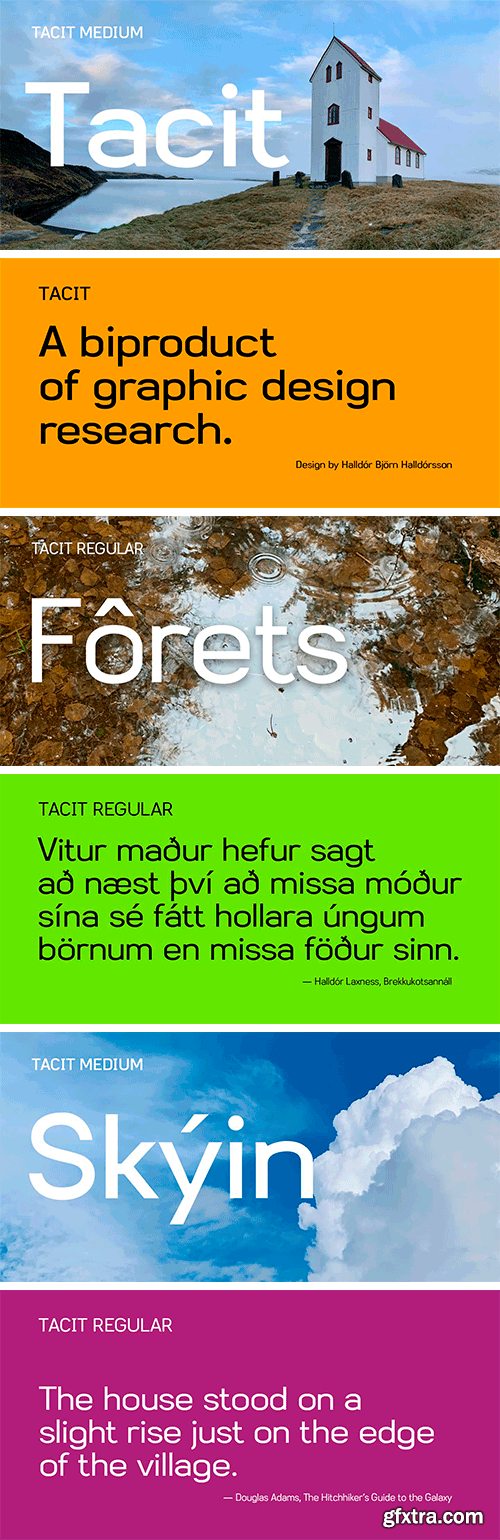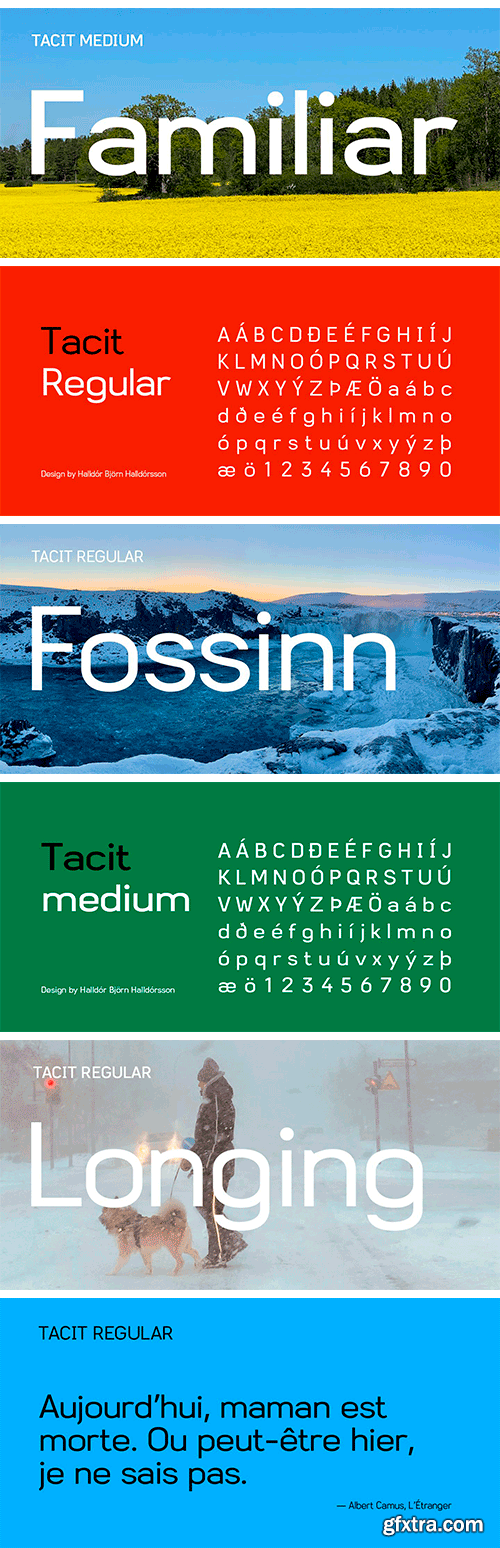
Tacit is the first typeface to be the creative outcome of a PhD thesis in graphic design. The work's main study had the aim of documenting design processes in an effort to externalise the tacit (experiential) knowledge of graphic designers. Initially the task was only to design several glyphs but the work resulted in a full typeface. Tacit is an elegant sans serif with a distinctive character and is legible at small and large point sizes.